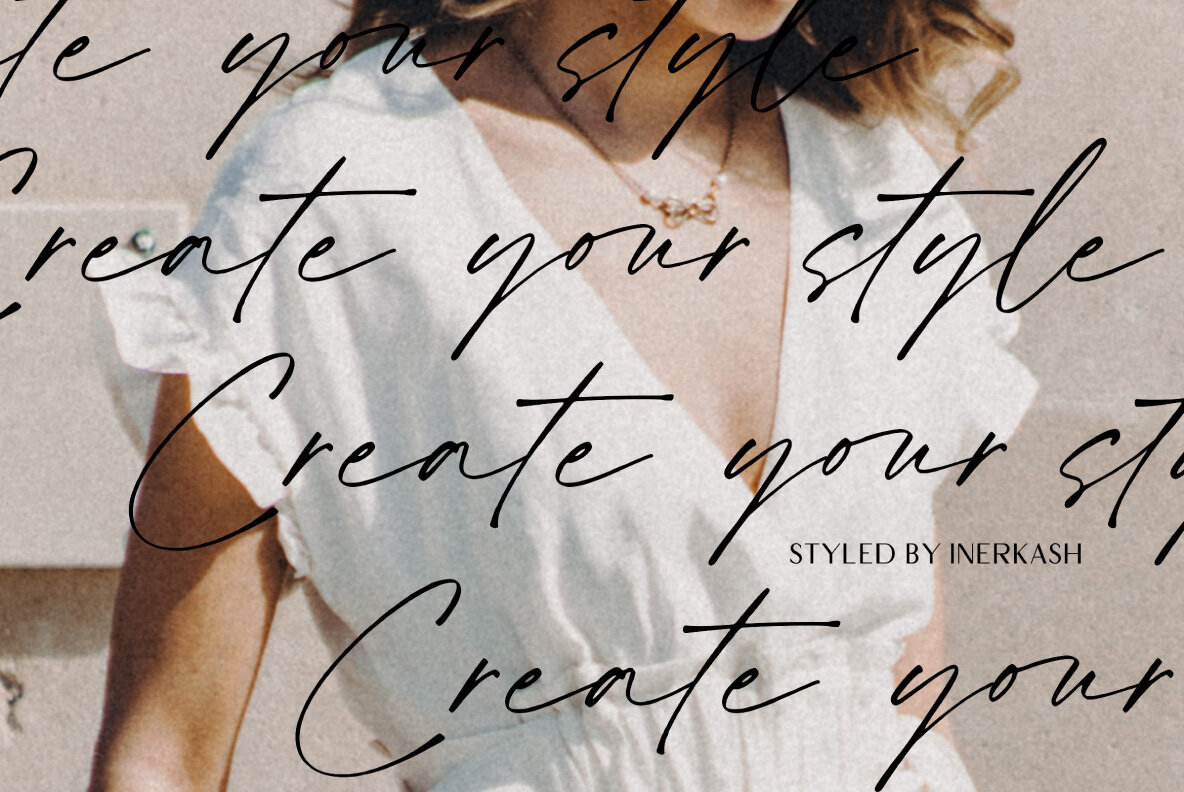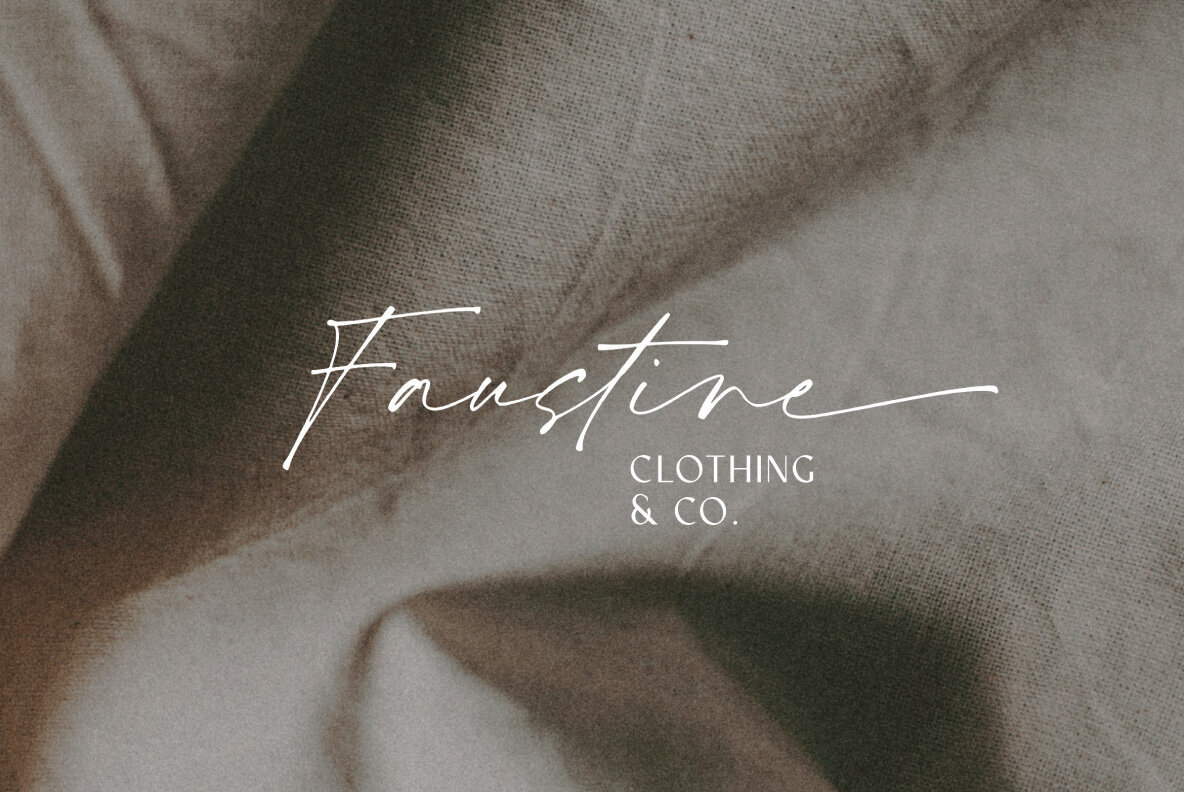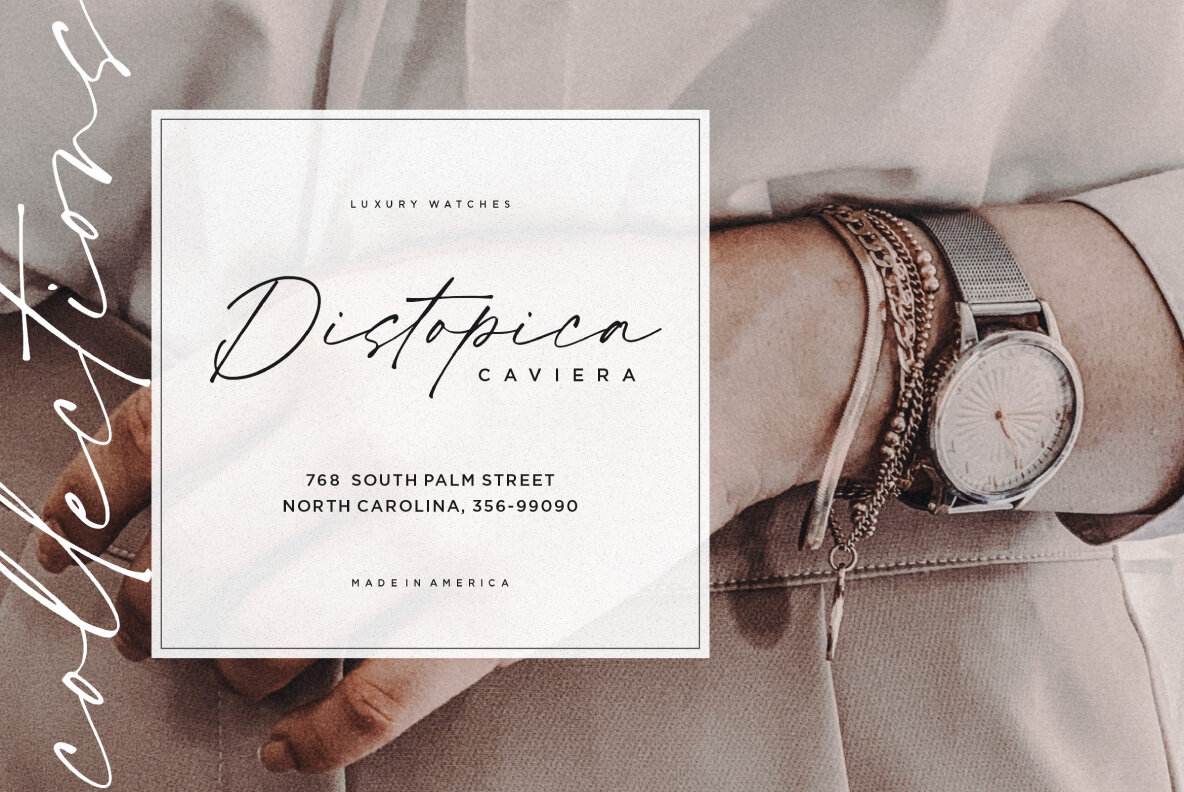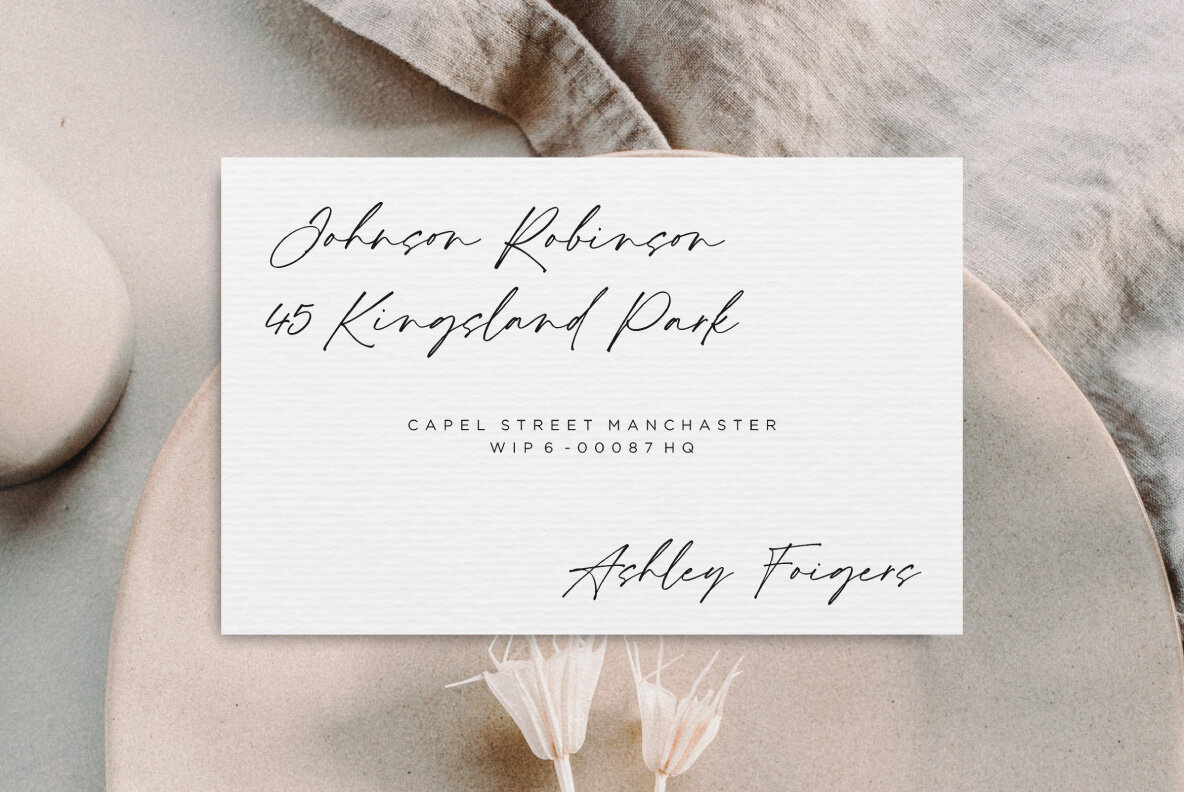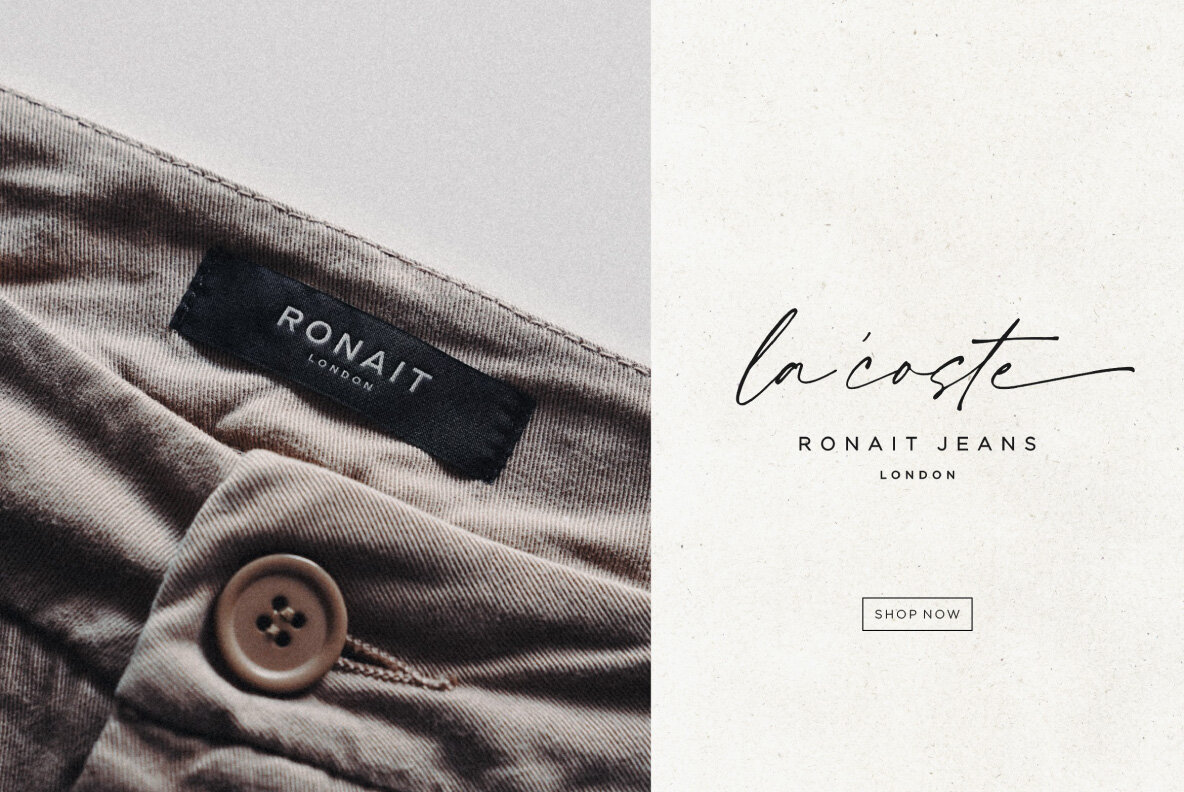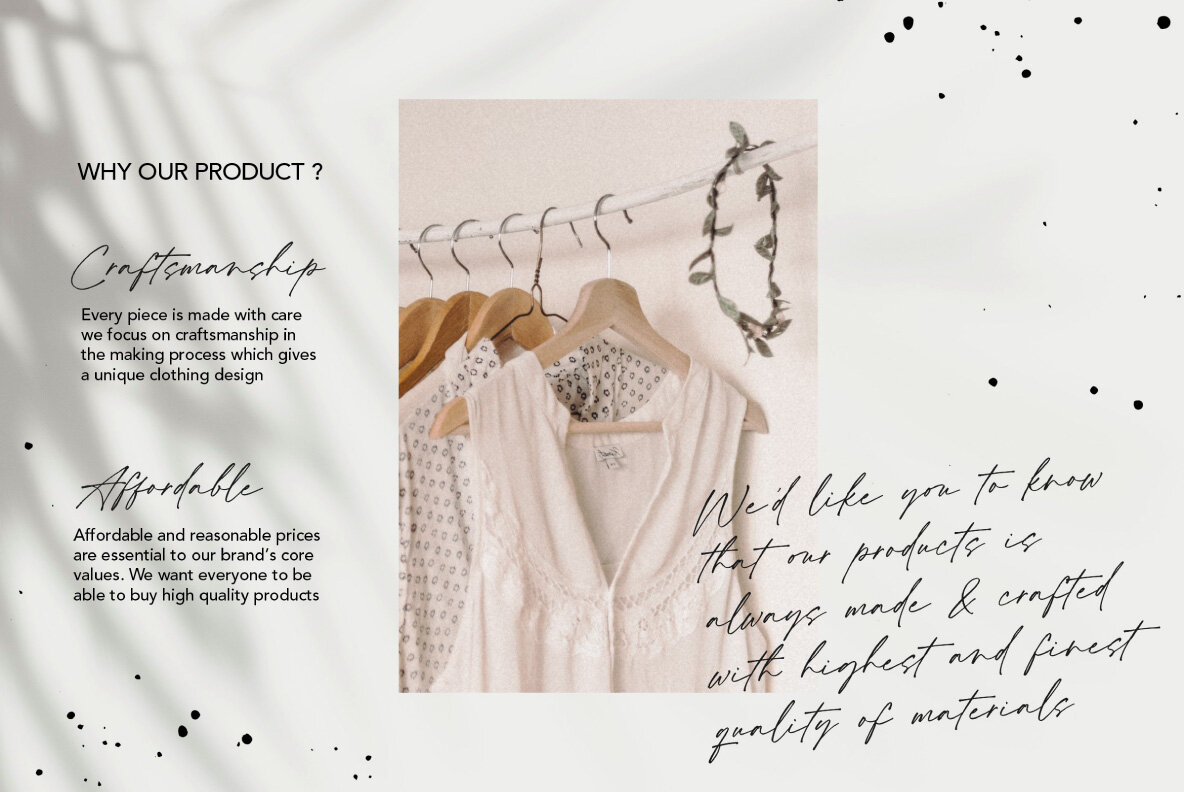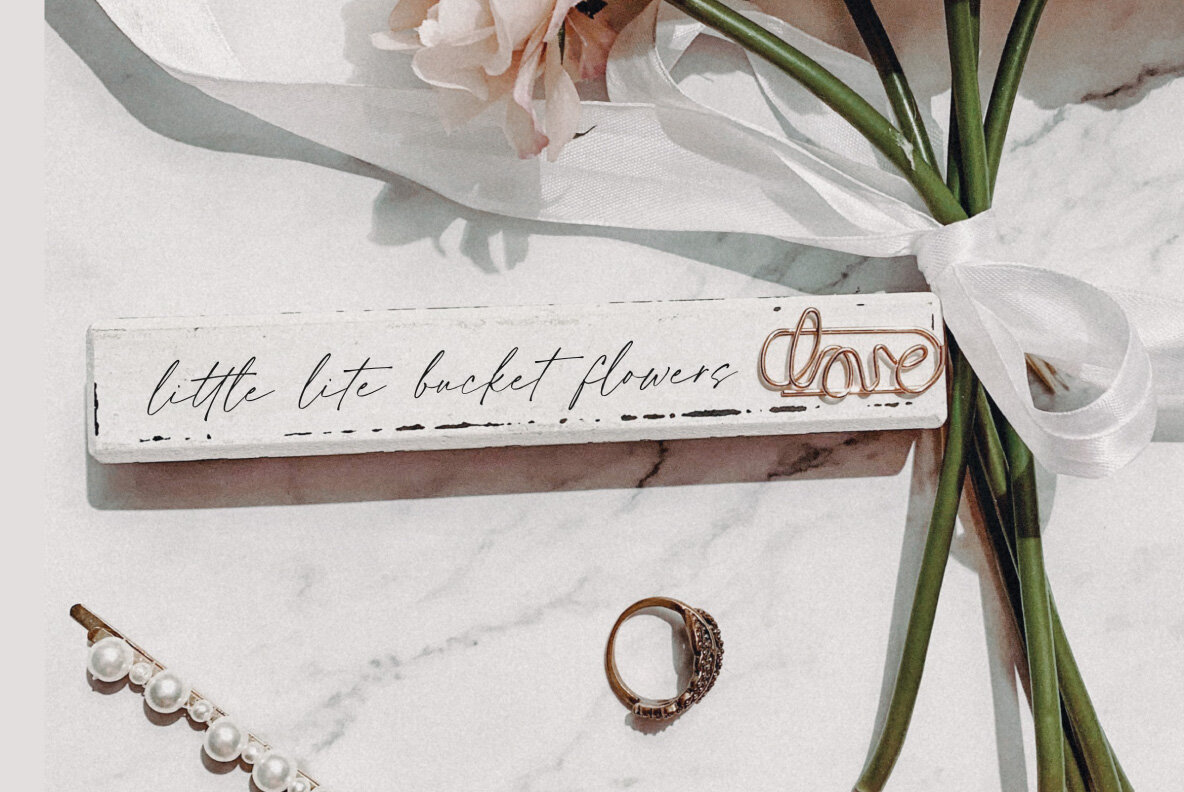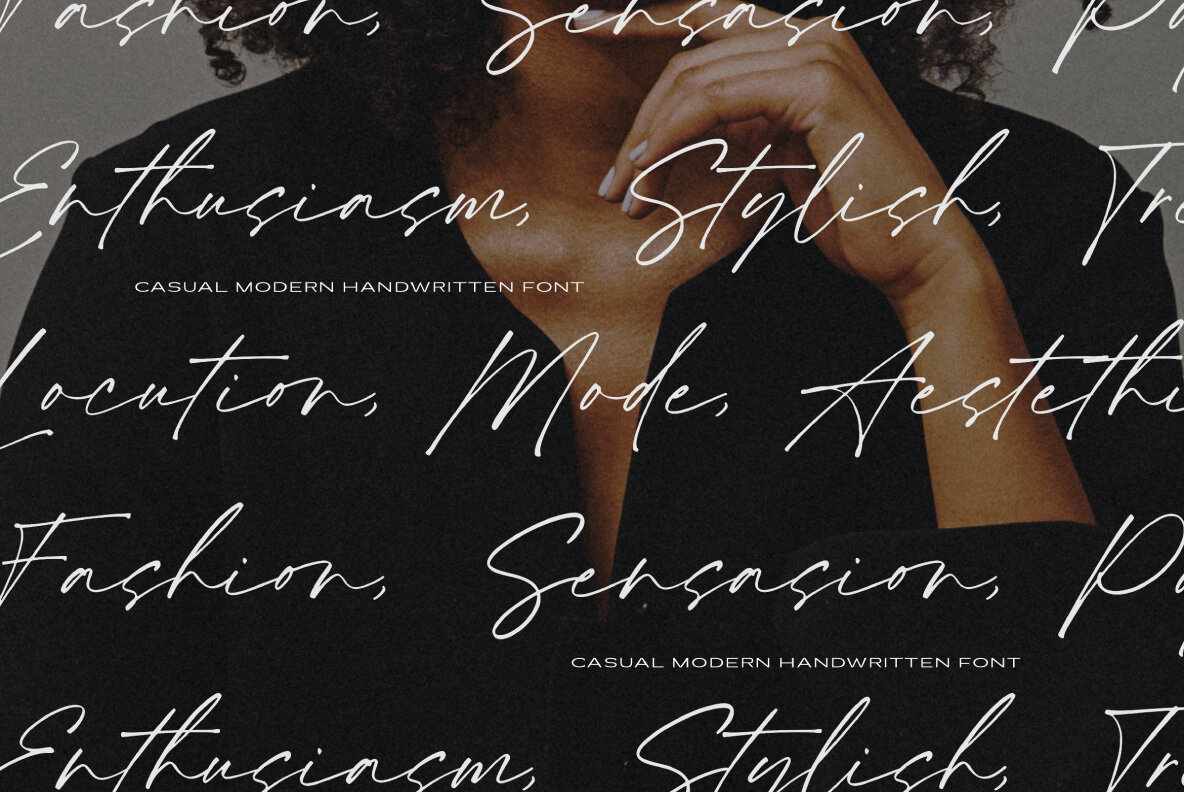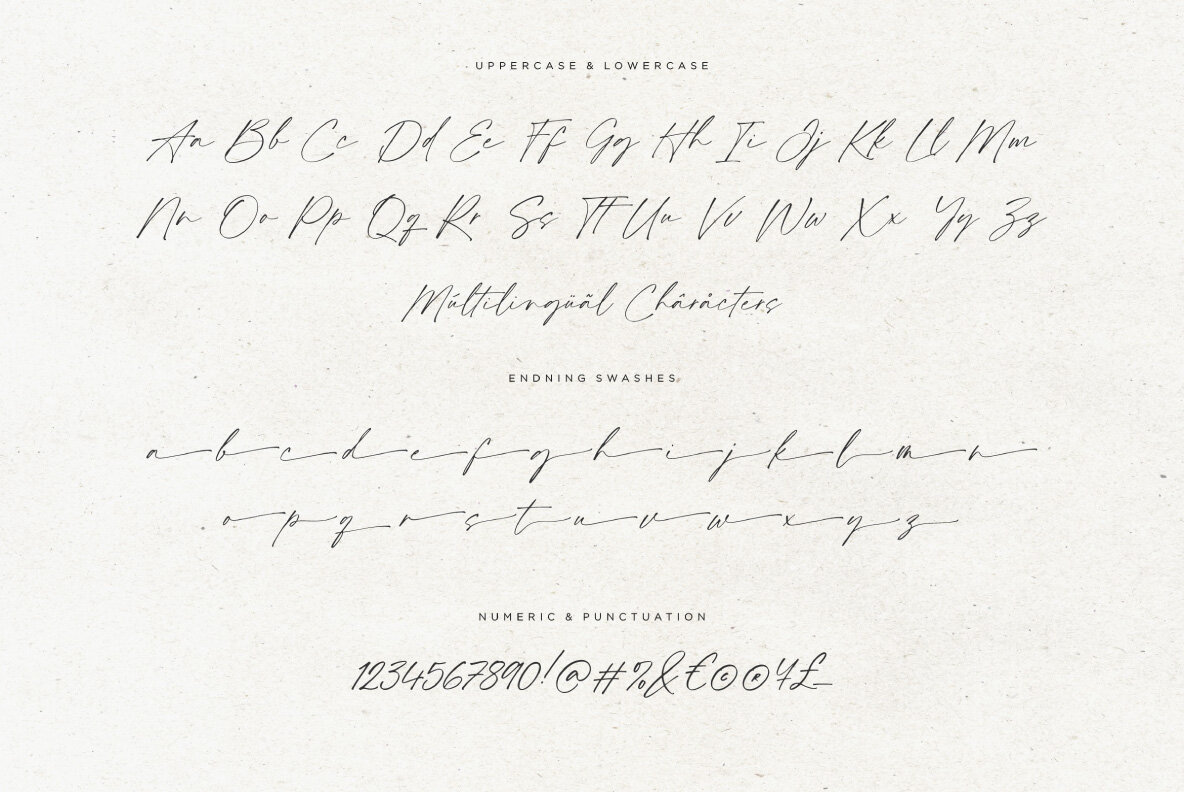
Friendlist Font
Friendlist Regular
Friendlist by Lunas Type infuses a casual modern style into handwritten typography. This font offers a myriad of ligatures and ending swashes, enhancing the expressiveness of your text. It’s an ideal choice for designers seeking to incorporate a natural elegance into their work. Whether you're crafting wedding invitations, designing stationery, developing brand identities, or adding flair to social media quotes, Friendlist provides a versatile solution. Its graceful style complements a variety of projects, infusing each with a unique charm.Friendlist: A Charming Handwritten Script